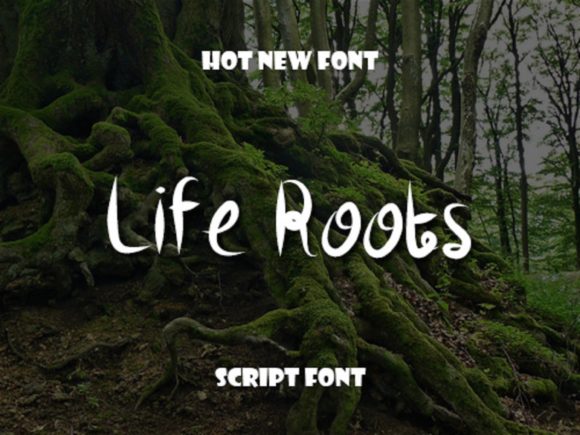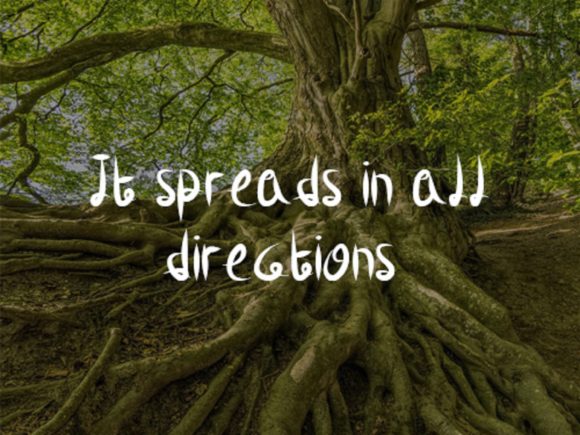
About Life Roots Font
Life Roots is a unique handwritten font. This font is the ideal font for adding an adventurous and authentic feel to your next design idea!